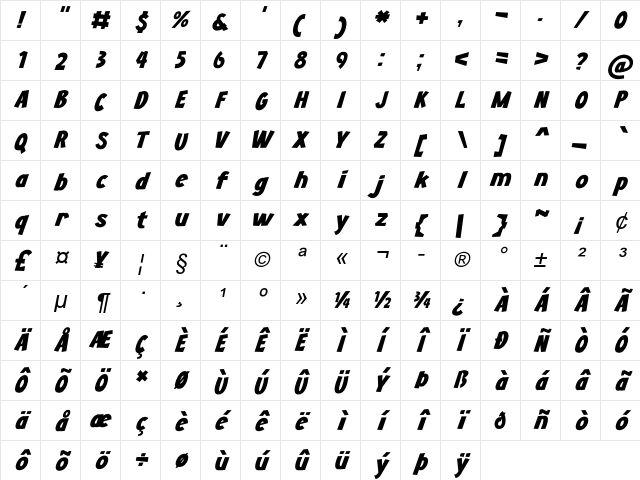
Comic Text Italic
Design Context for Comic Text
Comic Text has an approachable, lighthearted character - its loose, expressive forms are well-suited to children's content, casual branding, and fun-first design. The slanted form adds forward momentum and visual energy.
Font Pairing: Pairs well with a rounded or humanist sans for body copy, maintaining the friendly tone without relying on Comic Text to carry extended reading.
Pro Tip: Use Comic Text at larger display sizes where its expressive character can land. Pair with a clean, simple sans for body copy to maintain readability.